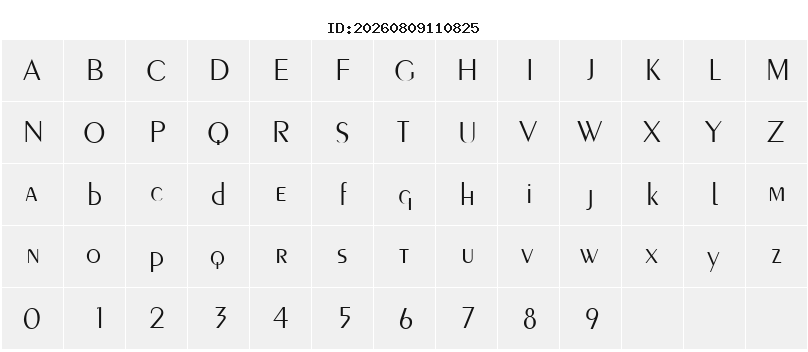
PenguinLight Preview
• Font Name: PenguinLight
About PenguinLight.ttf
PenguinLight.ttf is a modern, elegant sans-serif font designed for ultimate readability and visual harmony. Perfect for branding, headlines, web design, and print materials.